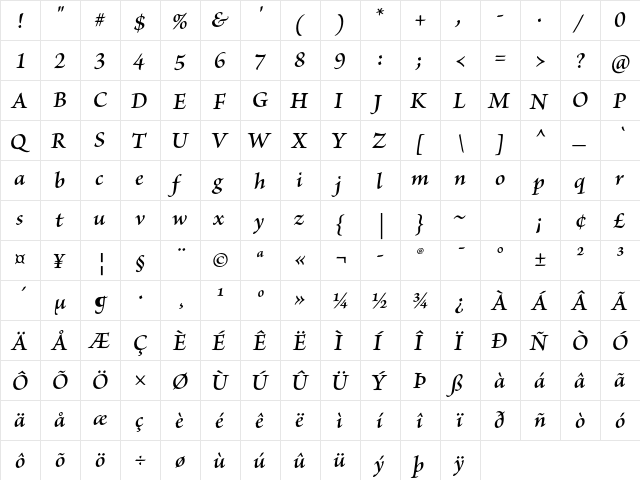
Brioso Pro Semibold Italic Font Preview
Brioso Pro Semibold Italic
| Designer | Robert Slimbach |
Design Context for Brioso Pro Typeface
Brioso Pro takes a measured approach to typography — its balanced proportions and neutral character make it a reliable workhorse for both digital and print work. The dynamic lean of this cut emphasises speed and emphasis in any layout. Its bold stroke weight gives it real presence on the page.
Pro Tip: Use Brioso Pro for emphasis, pull quotes, and subheadings where its slanted energy can add rhythm to the layout.